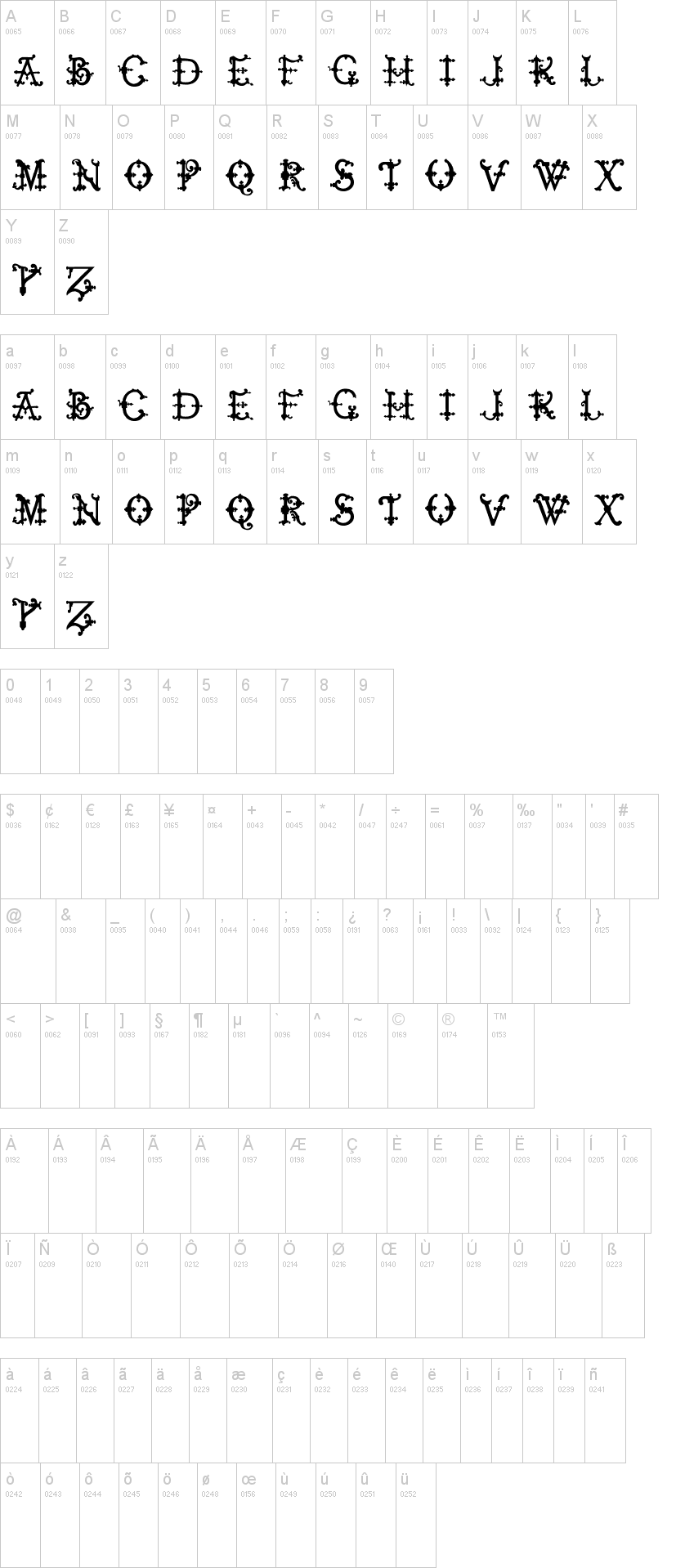
Note of the authorThis typeface is based on the vectorization of the alphabet of a book dating from 1860. Because the alphabet only had 23 letters, the remaining were invented :P